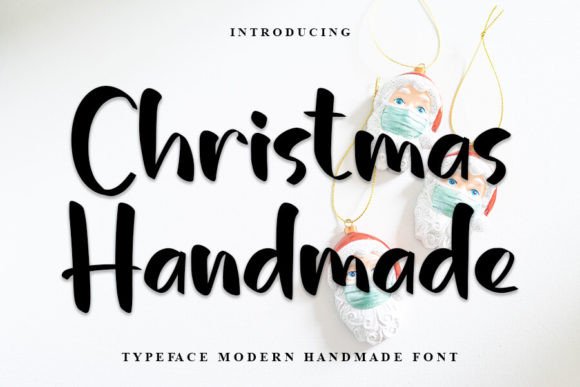
Are you in search of the perfect font to make your designs stand out? Look no further than Christmas Handmade Font! Created by Inermedia STUDIO, this script font is the ultimate choice for knockout designs.
Christmas Handmade Font exudes elegance and charm with its stylish handwritten appearance. It has a contemporary atmosphere that adds a modern twist to any project. The impeccable form of this font is inspired by timeless classic calligraphy, making it a truly versatile choice for all your creative endeavors.
One of the standout features of Christmas Handmade Font is its balanced and varied strokes. Not too thin and not too thick, this font strikes the perfect balance, adding depth and character to your designs. Whether you're creating a logo, a greeting card, or an invitation, this font will enhance the beauty of your projects.
What sets Christmas Handmade Font apart from the rest is its ability to evoke emotions. With every stroke, it captures the essence of warmth, joy, and nostalgia. The handcrafted feel of this font creates a personal connection with your audience, making them instantly drawn to your message.
With its keyword "Best Font For Knockout Design," Christmas Handmade Font is specifically designed to make your designs pop. Its unique style will make your text stand out and grab attention. Whether you're designing for print or digital platforms, this font will make a lasting impression on your audience.
Downloading Christmas Handmade Font is like unwrapping a gift of endless creativity. It opens up a world of possibilities, allowing you to bring your ideas to life with a touch of elegance and sophistication. Let your imagination run wild and watch as this font transforms your designs into works of art.